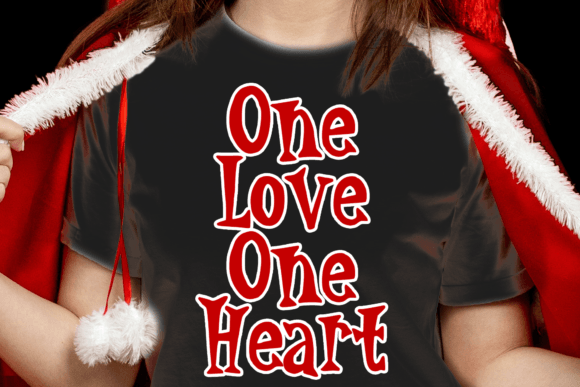
Gothic Christmas Font
Gothic Christmas is a spooky Christmas display font yet playful and fun on the same time. You can use it for anything ranging from t-shirts, book designs, and greeting cards to stickers and posters, or anything that needs a casual touch. Fall in love with its incredibly versatile style, and use it to create lovely designs!